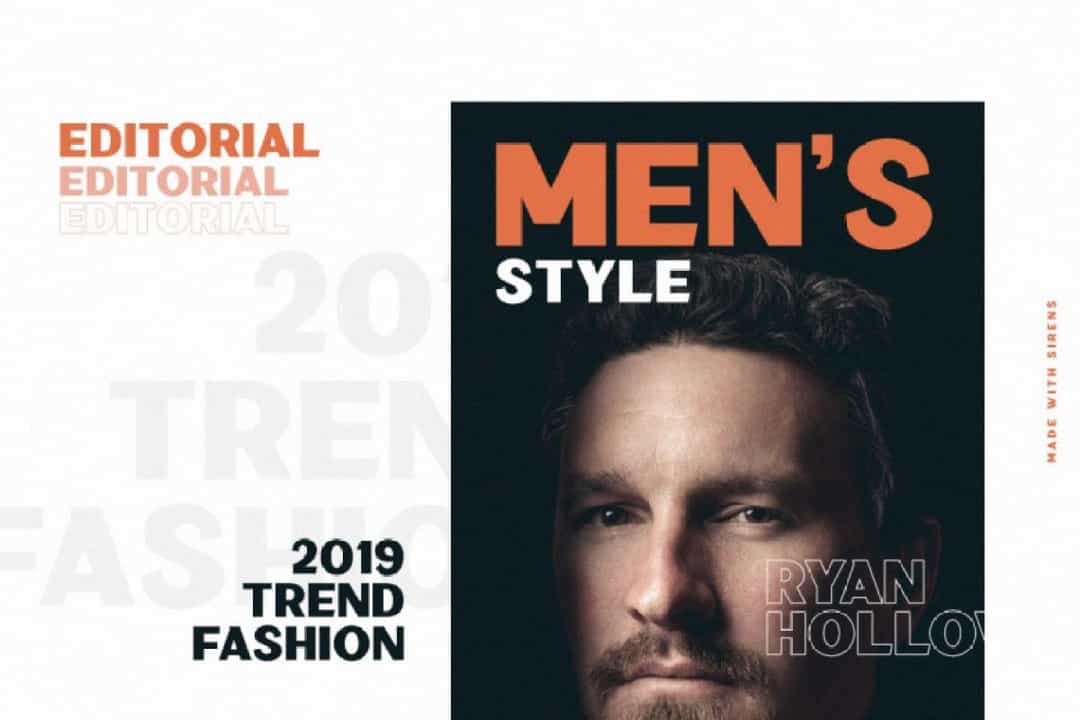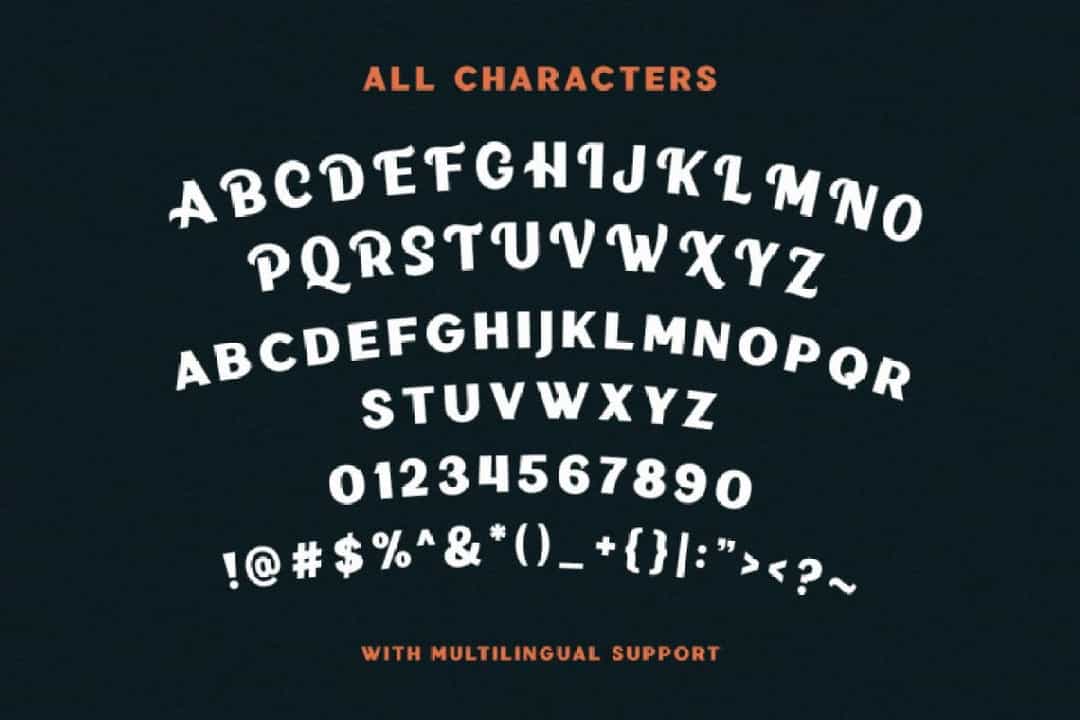
Sirens – a bold sans type with some alternates! Sirens is a clean and friendly discreet sans font that has its unique and smart feature of having multiple alternates for every lowercase letter – up to three of them can be selected! This font is perfect for headlines or you can use it in inscriptions, or quotation; it is also great as a font pairing!